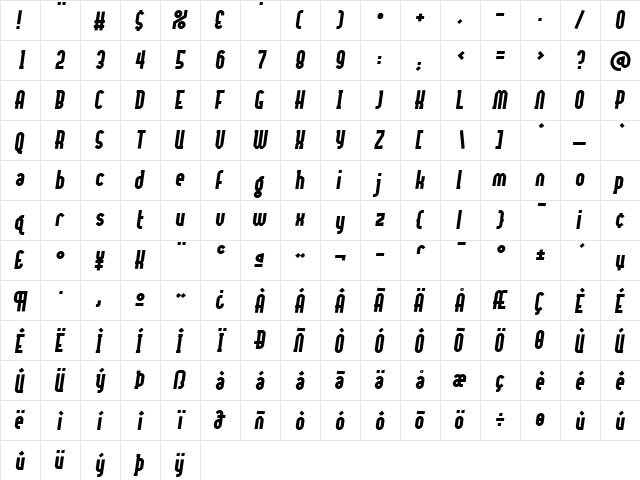
Centrifuge ExtraBold Font Preview
Centrifuge ExtraBold
Design Context for Centrifuge Typeface
Centrifuge is a composed and adaptable typeface that performs quietly and consistently across a wide range of design contexts. The heavy weight commands attention and anchors typographic hierarchies.